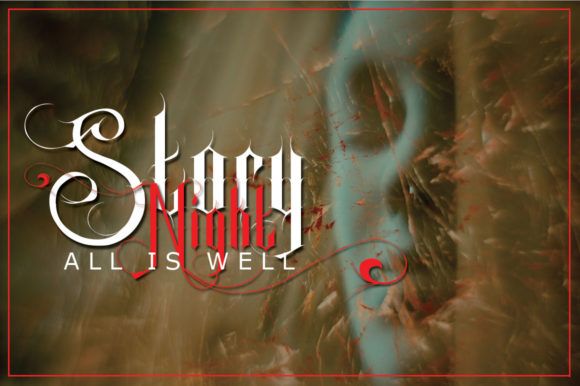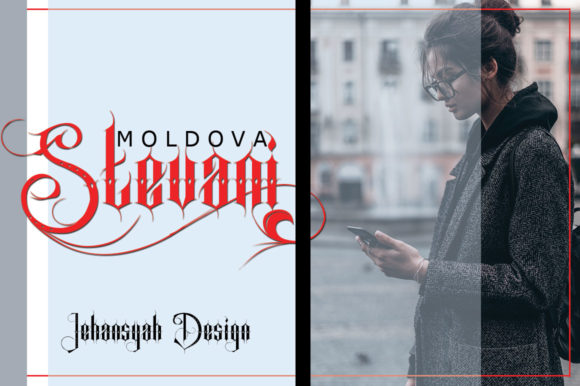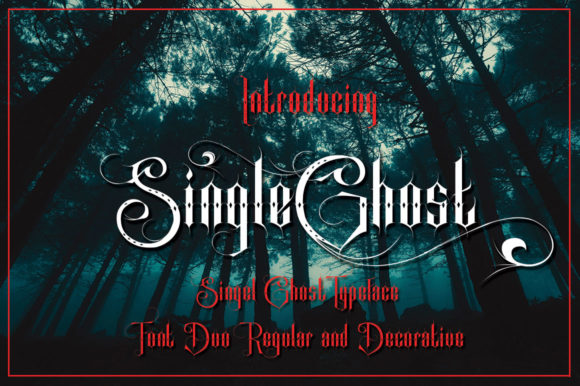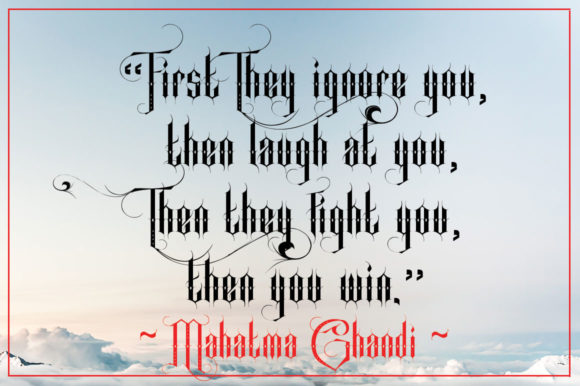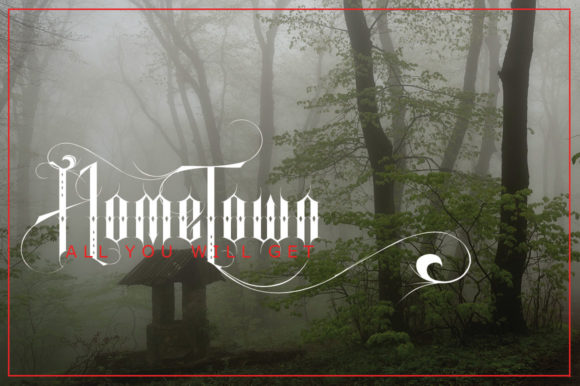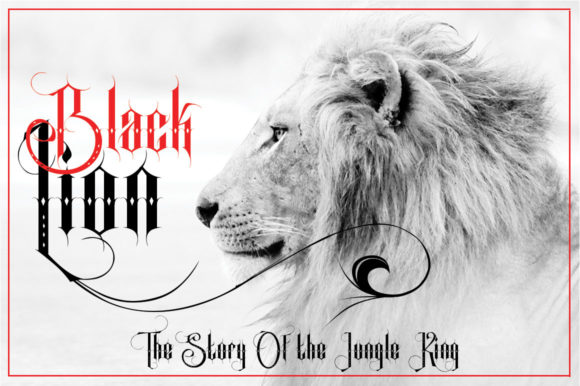
Introduction to Single Ghost Font Font
Fonts play a crucial role in design, and the Single Ghost Font font is a typeface that brings both character and versatility to any project. Whether you’re working on a branding project, a website, or a print design, the Single Ghost Font font offers a unique style that can elevate your work.
Inspired by Gothic horror, Single Ghost is a spooky and delicate display font.
It will turn any horror-themed design project into a stand out .
Key Features of Single Ghost Font Font
Why Choose Single Ghost Font Font?
The Single Ghost Font font is more than just a typeface – it’s a design tool that helps you communicate your message with style and clarity. Its unique character set and versatile design make it suitable for a wide range of applications, from elegant invitations to bold headlines.
With its carefully crafted letterforms and balanced proportions, the Single Ghost Font font ensures readability and visual appeal across all mediums.
What makes Single Ghost Font font special?
The Single Ghost Font font stands out with its unique design, exceptional readability, and versatility across various design applications.